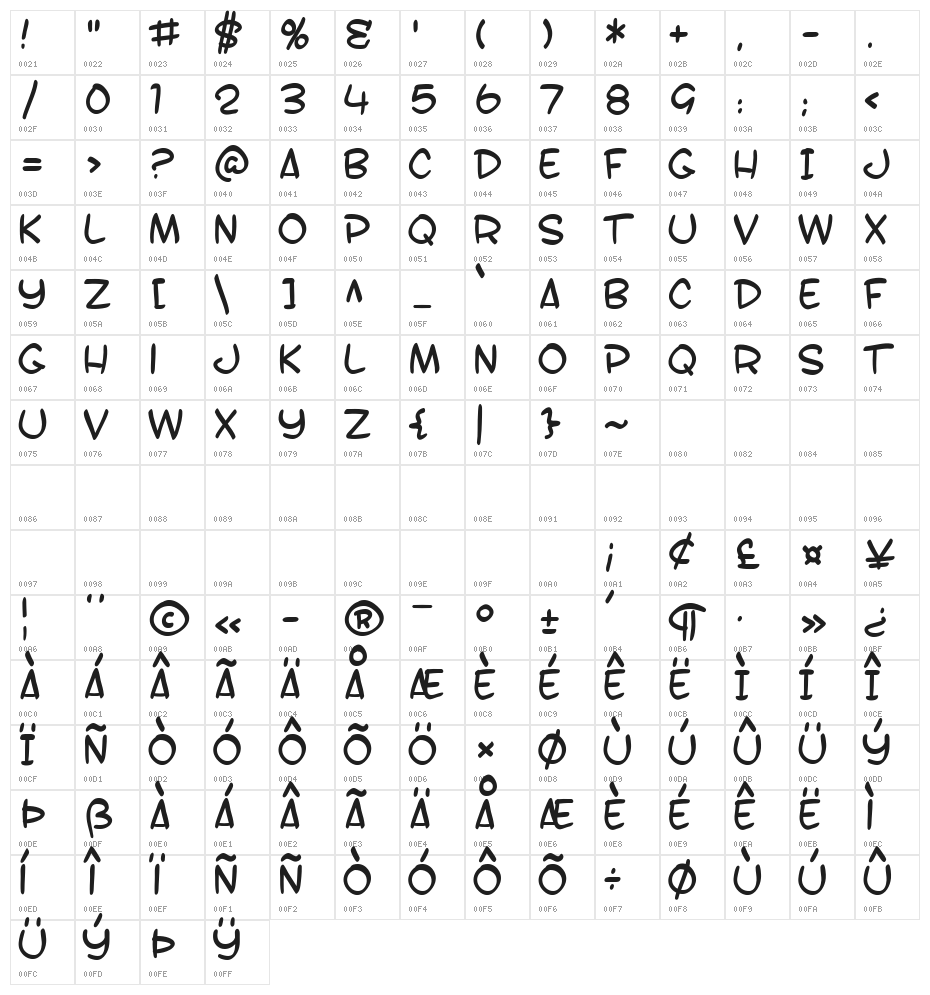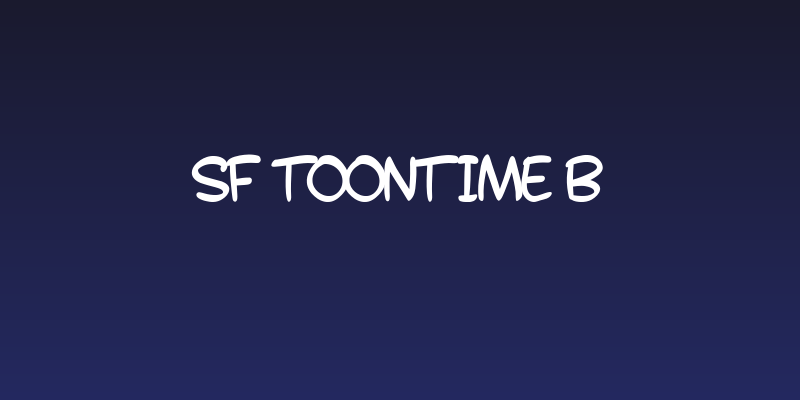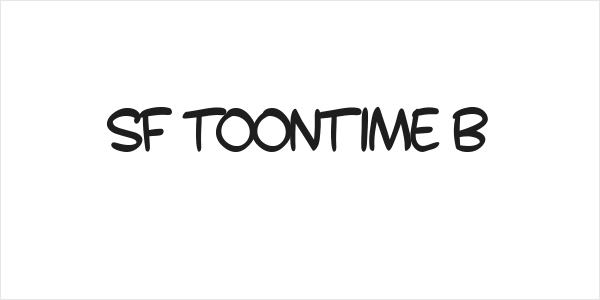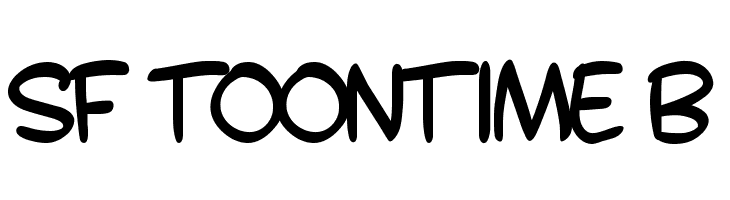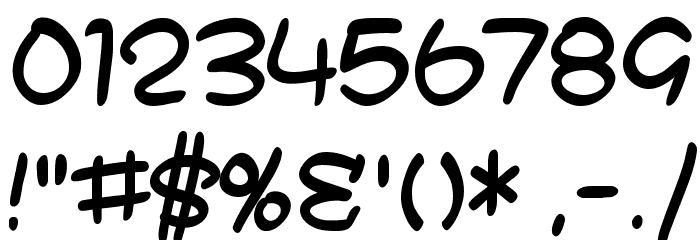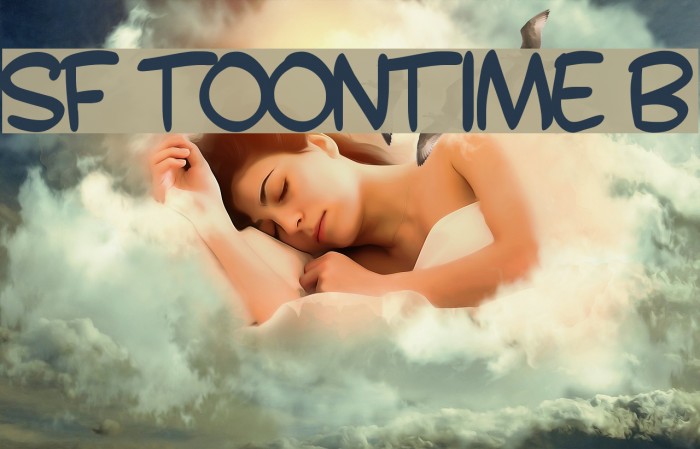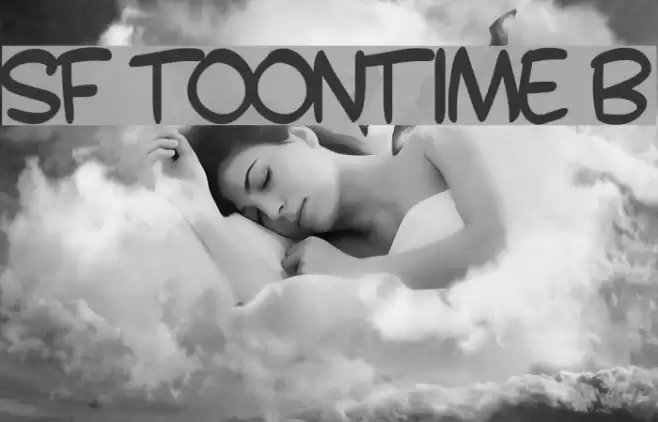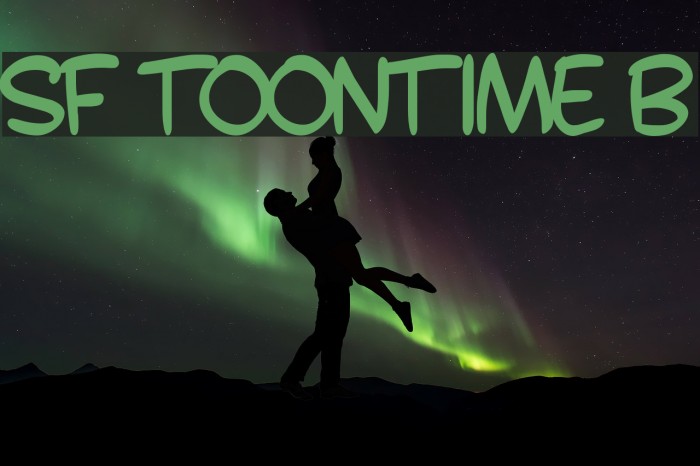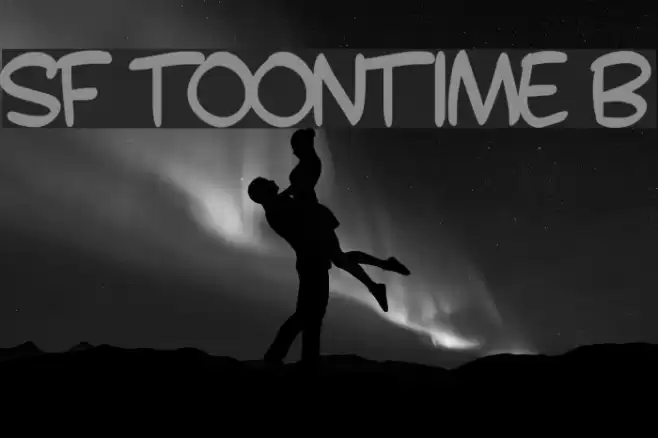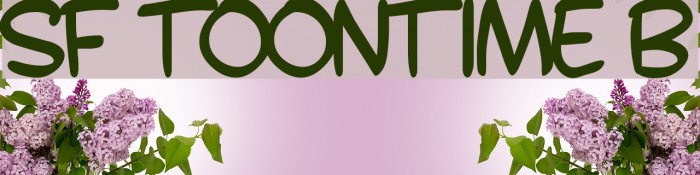
SF Toontime B Font
SF Toontime B Description
This playful and whimsical font features bold, rounded characters with a hand-drawn appearance. The strokes are thick and consistent, giving it a cartoon-like feel. The letters have a casual, informal style, with some characters slightly tilted or uneven, adding to its charm. The numbers and special characters maintain the same playful aesthetic, making it suitable for creative and fun projects. Its boldness ensures readability while the unique style adds personality.
| Overall Style | Playful, Cartoon-like |
| Proposed Projects | Ideal for children's books, comic strips, playful branding, and creative posters. |